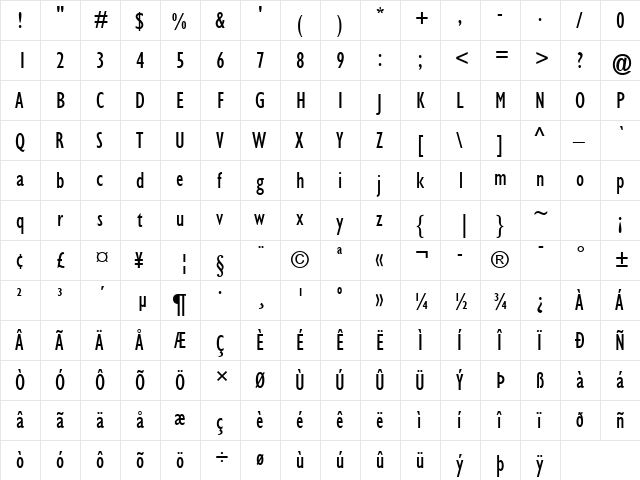
GillSans Condensed Regular
Design Context for GillSans Condensed Typeface
GillSans Condensed takes a measured approach to typography — its balanced proportions and neutral character make it a reliable workhorse for both digital and print work. Its narrow stance lets it pack a punch even in space-constrained designs.
Pro Tip: Use GillSans Condensed in both headline and body roles to test its range before committing to a single application.